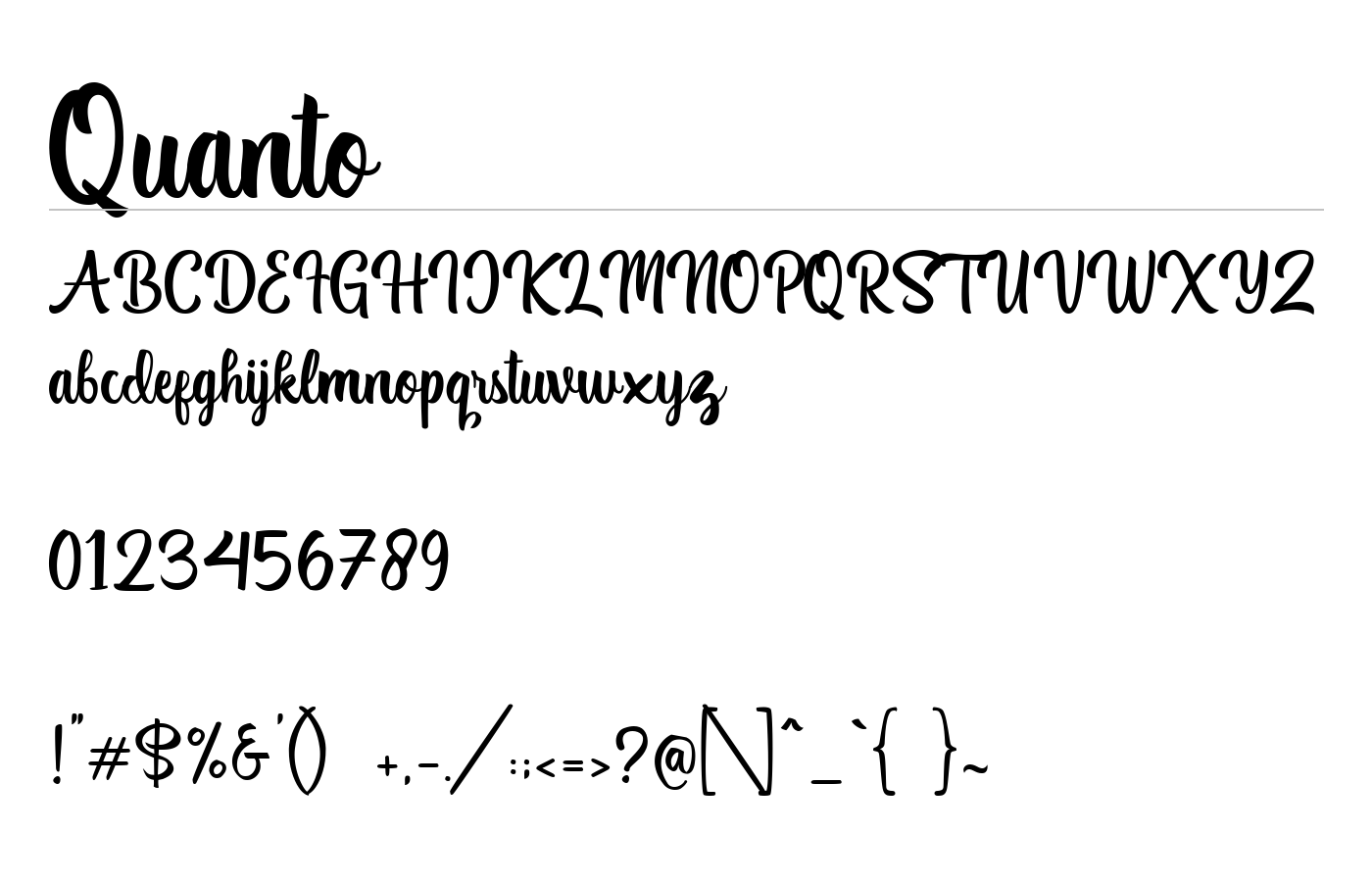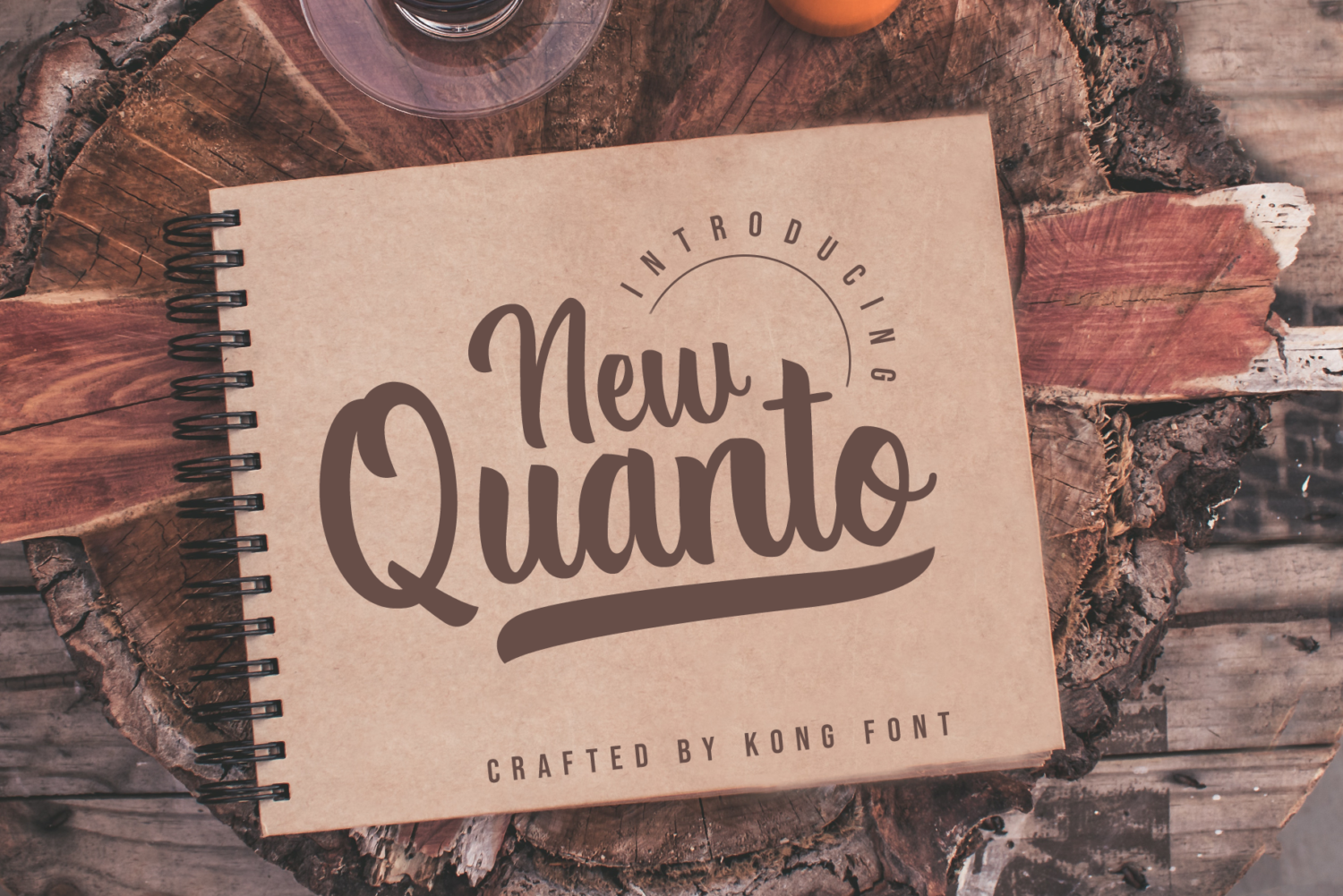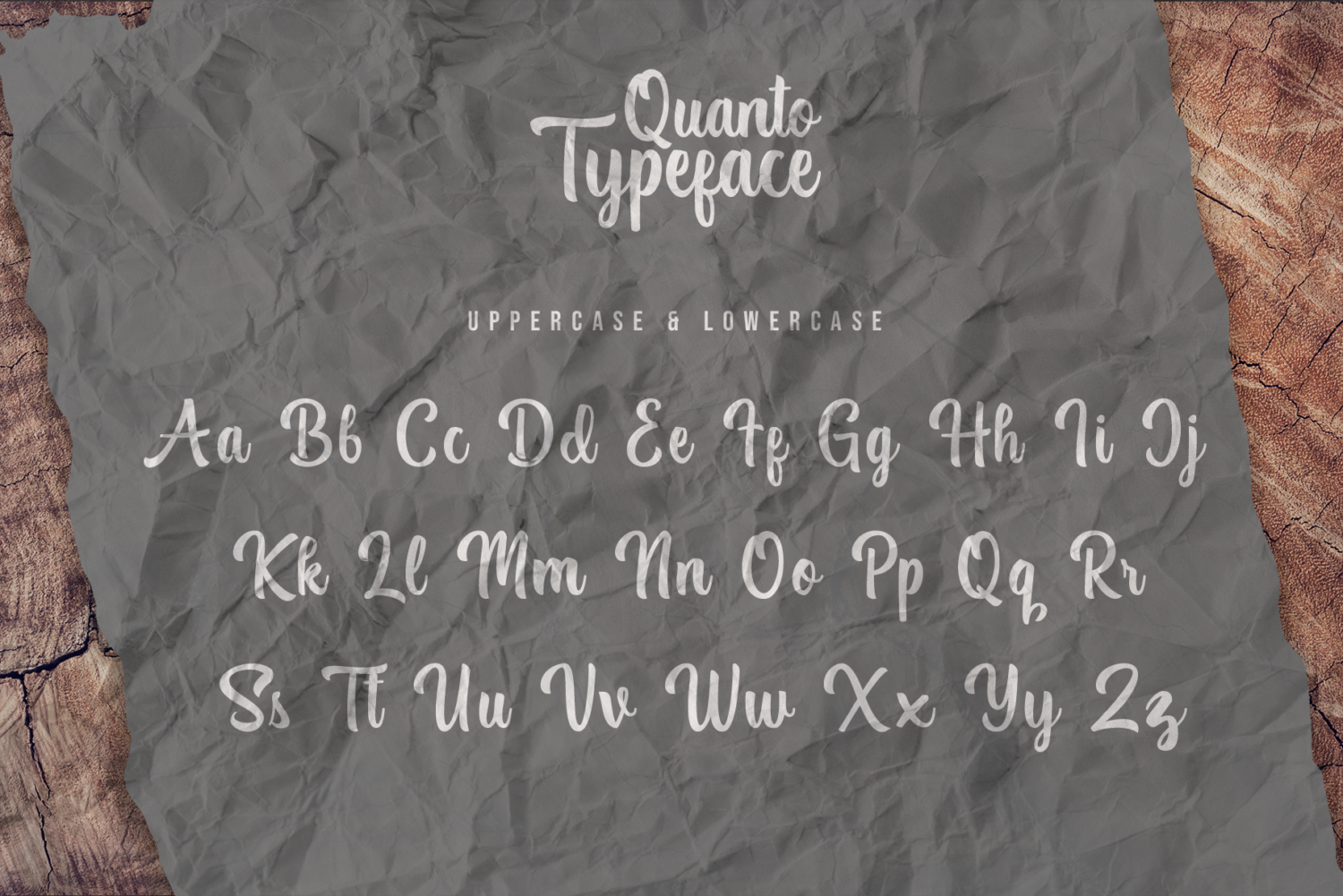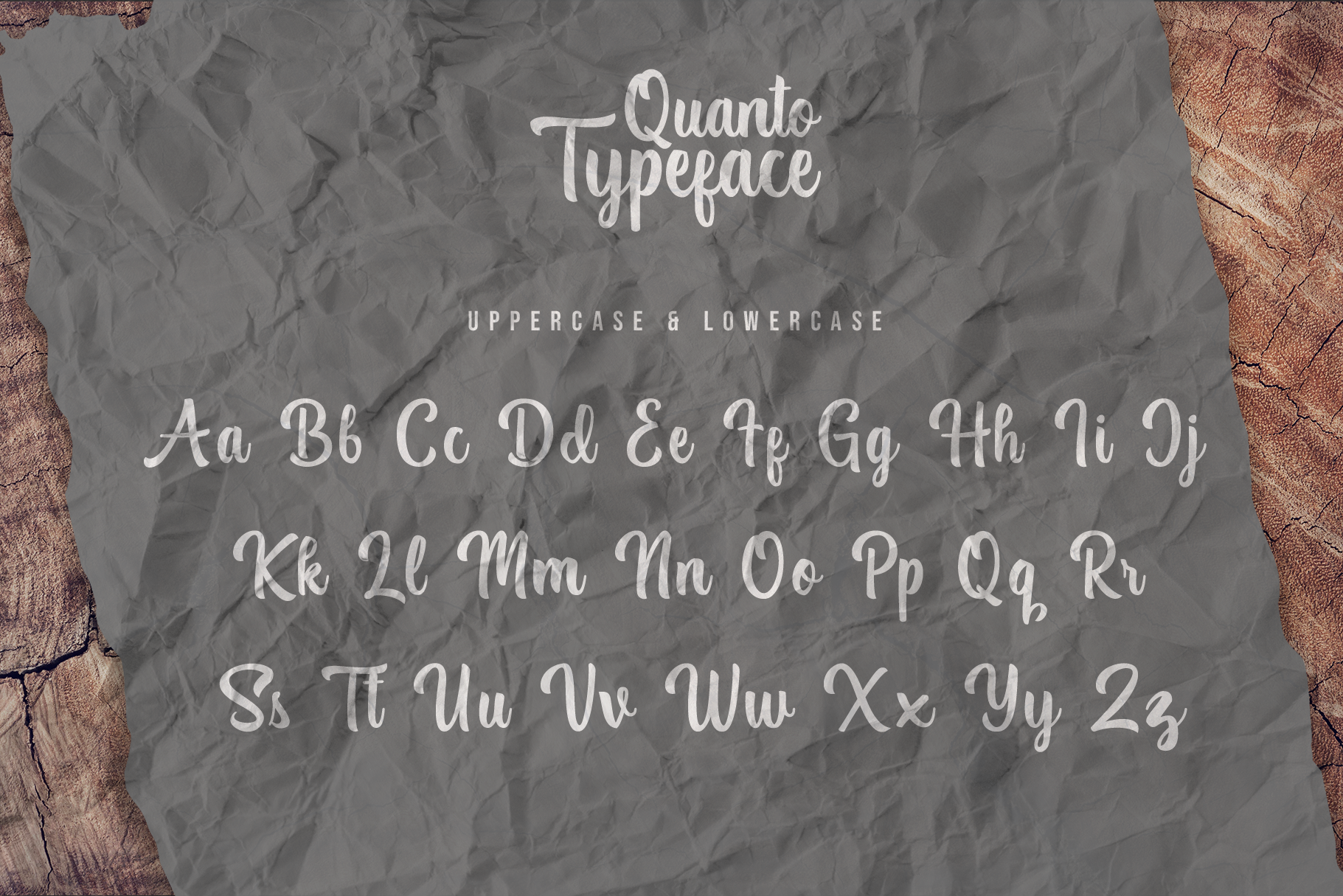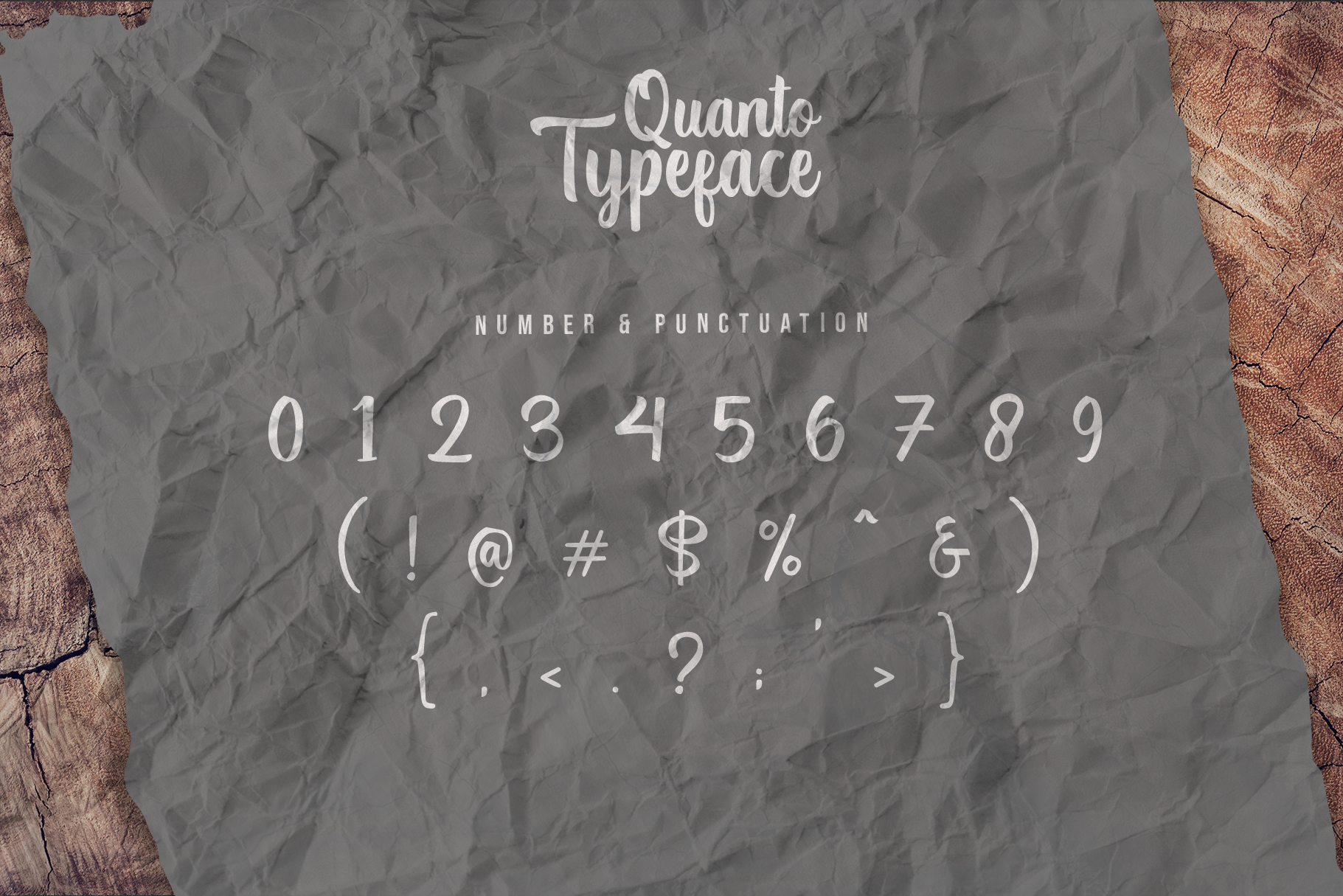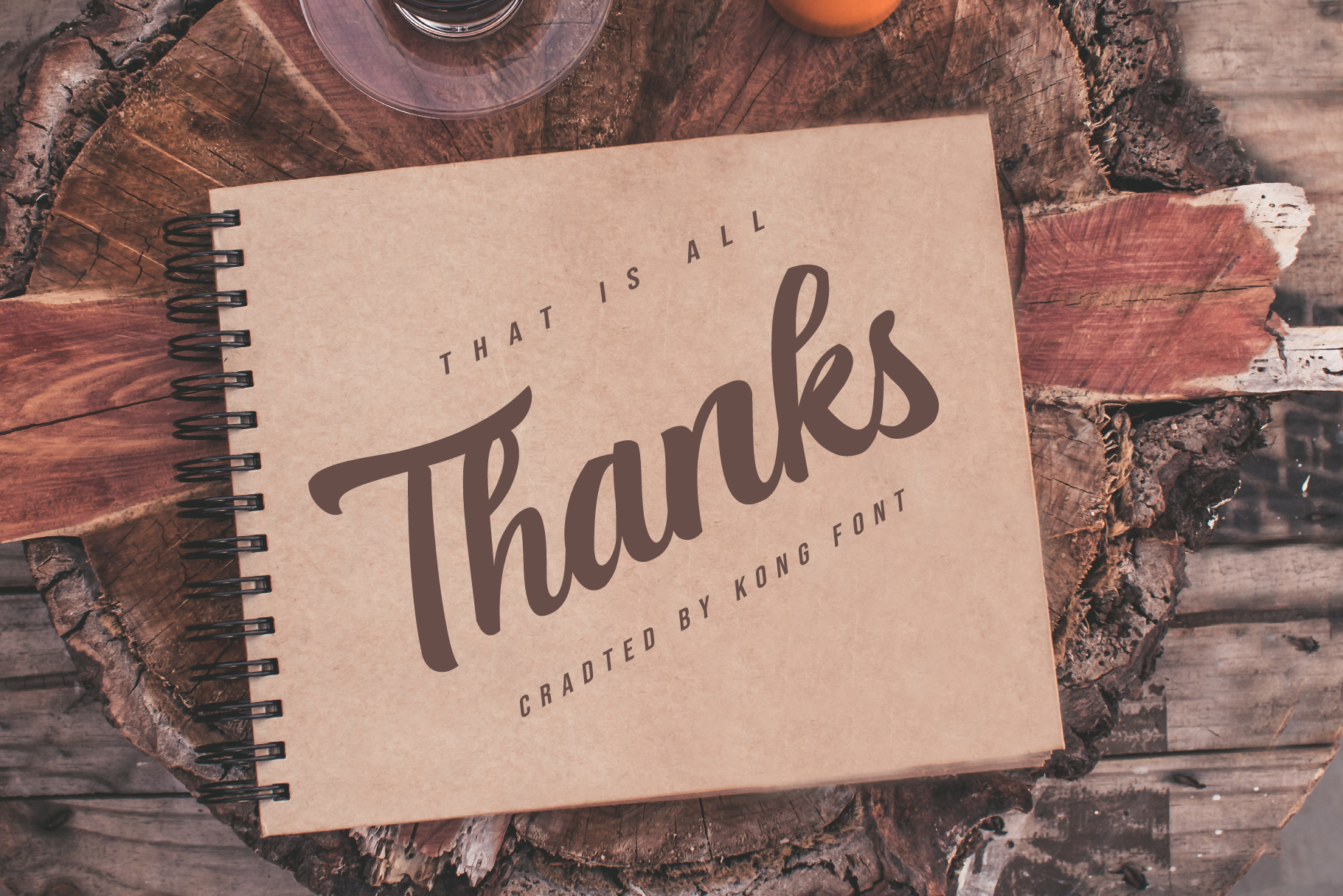
Quanto Handwritten is a charming and casual script font with smooth, flowing strokes and a slightly playful personality. Its medium weight and rounded letterforms create an inviting and friendly feel, making it ideal for creative projects, branding, and informal communications. This font works well in logos, invitations, and packaging where a personal and approachable touch is desired.
Quanto Handwritten Font
About Quanto Handwritten Font